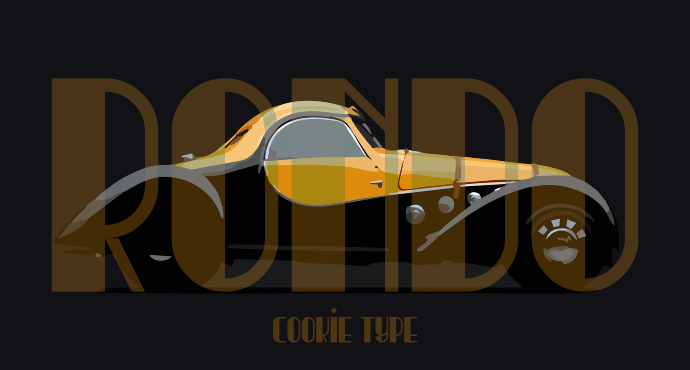
@zephram, thanks, I tried to make them as distinguishable as possible using stacked bricks and composites (on 2x2 grid), so this was kind of a challenge :)
Congratulations on the TP :) The font is beautifully proportioned and smooth as silk. The sample is perfect. Not sure about the "1", would a simple curve (as on D), simple straight line (as on N) or adjusted ¶ give a more obvious glyph?
@zephram, thanks, I tried to make them as distinguishable as possible using stacked bricks and composites (on 2x2 grid), so this was kind of a challenge :)
I like art deco design.
A design reminiscent of “Broadway”
@Wataru Aiso, I hope FS staff will assign this to their Art-Deco category (set) :)
and for the Art Deco set assignment too :)
Congratulations on the TP :) The font is beautifully proportioned and smooth as silk. The sample is perfect. Not sure about the "1", would a simple curve (as on D), simple straight line (as on N) or adjusted ¶ give a more obvious glyph?
@Aeolien, thanks for suggestions. I made an attempt to fix the 1 and am eager to hear what you think :)
Oh yes, that 1 is a very obvious 1, and it still fits the look of the curved design.
i think you can speand a li'l more time on more latin about concerning.
I respectfully submit this Ю suggestion to you, also for Щ, just add a little line to Ш.